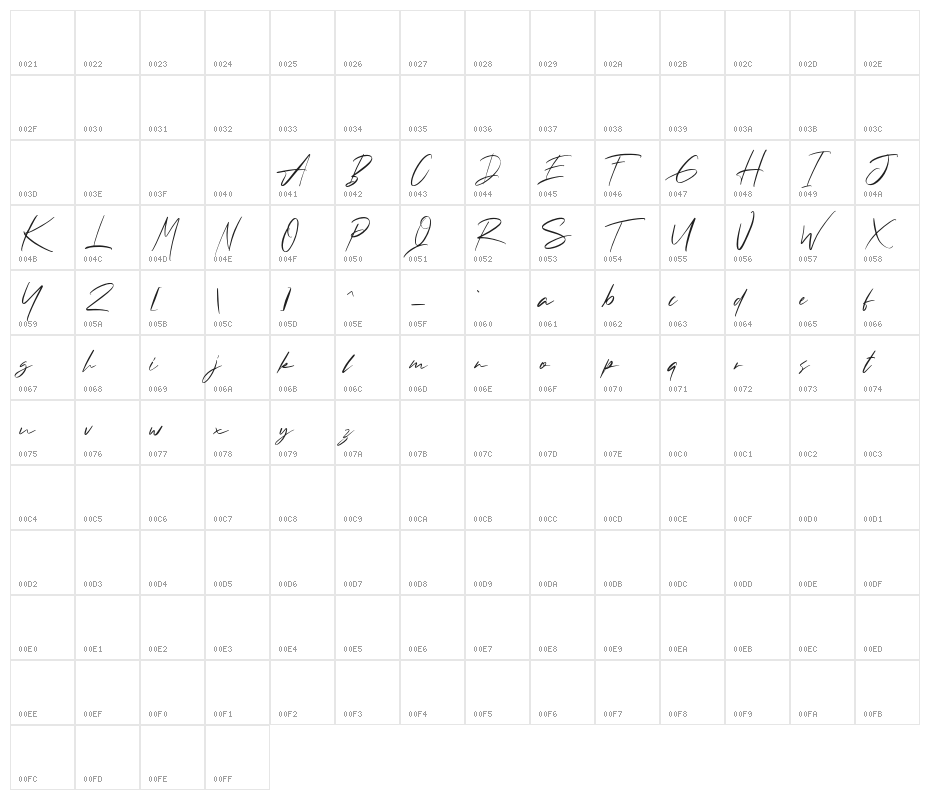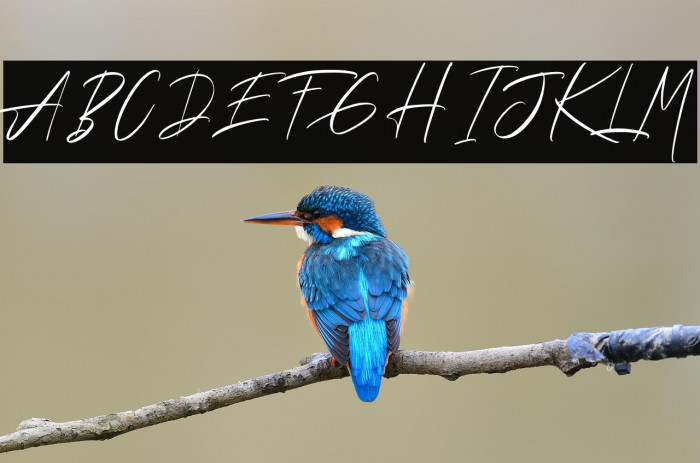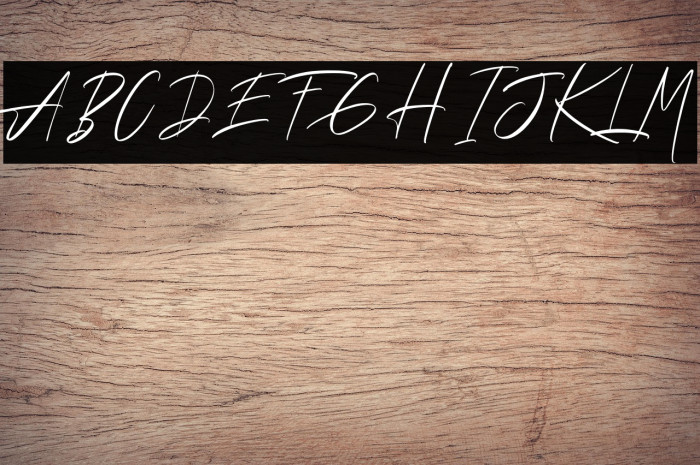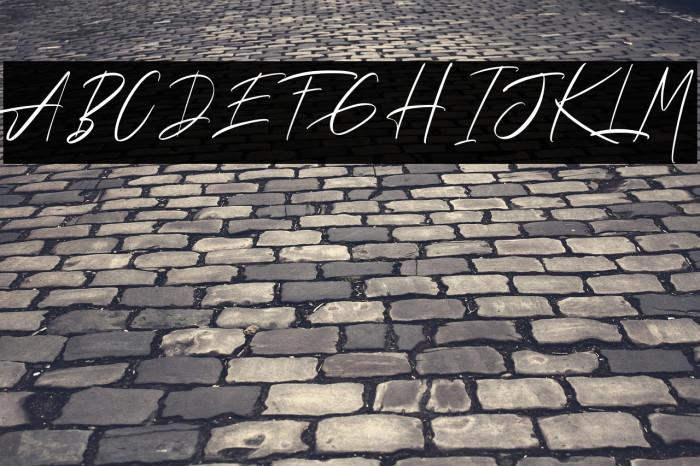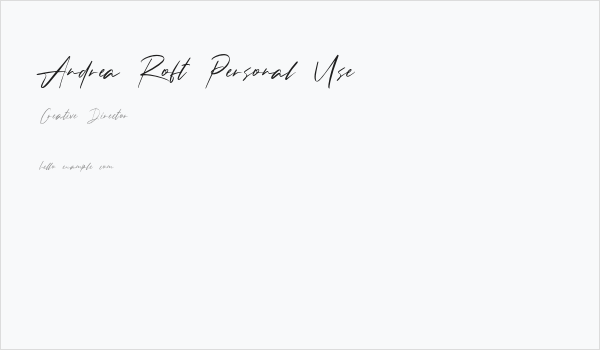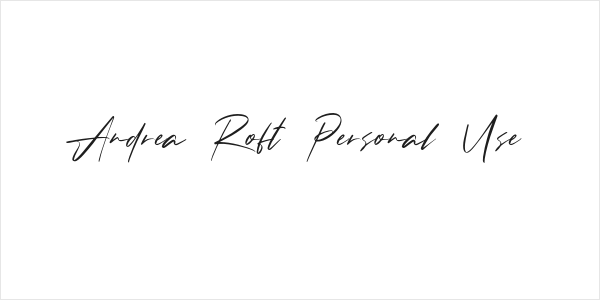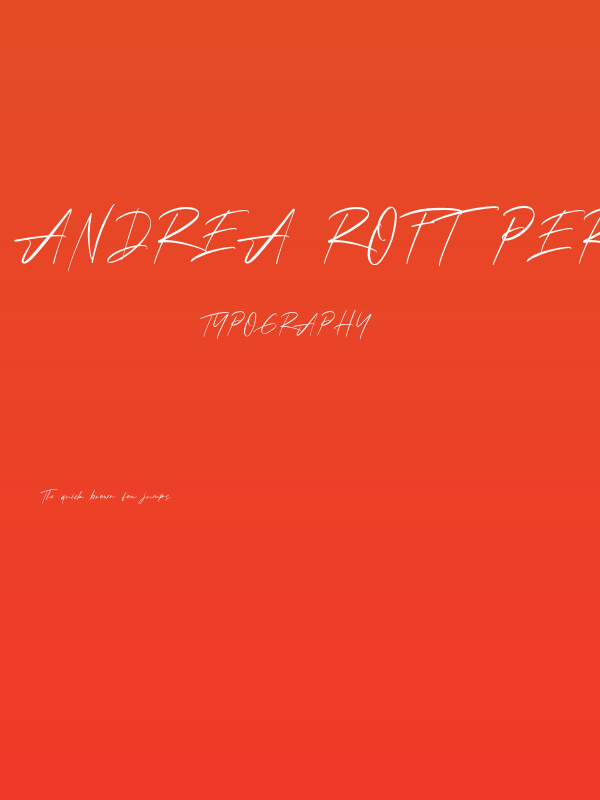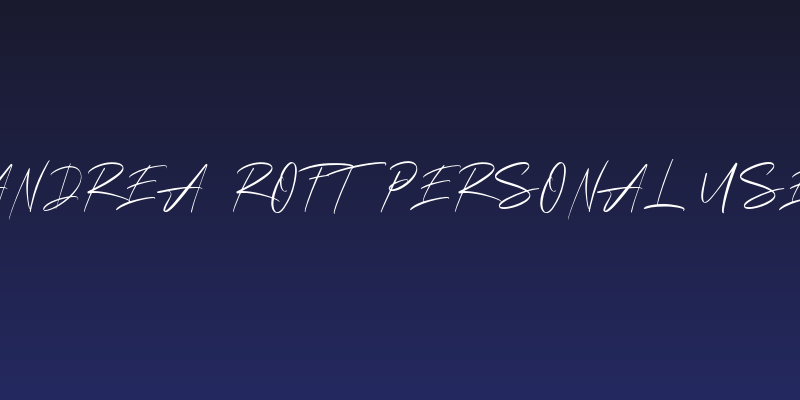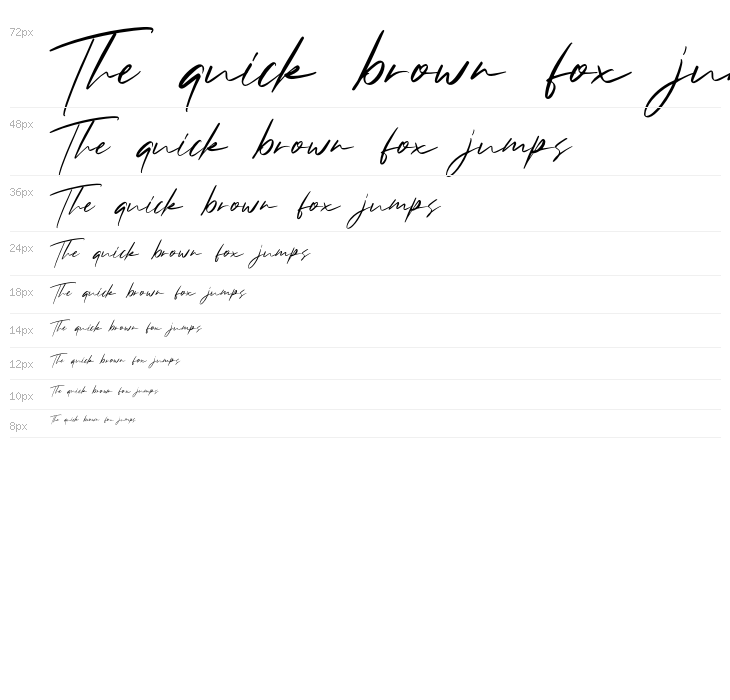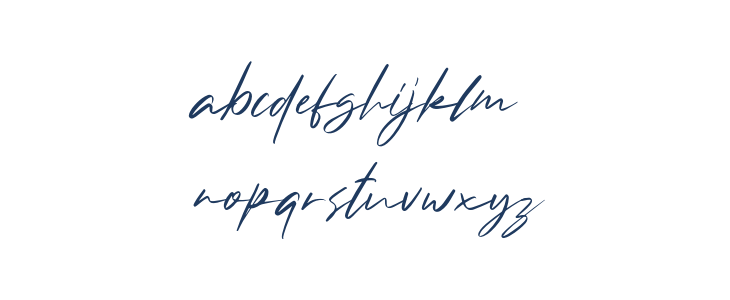
Andrea Roft Personal Use Font
Andrea Roft Personal Use Description
This font features a dynamic and fluid handwritten style, characterized by its elegant and flowing letterforms. The uppercase letters are tall and slightly slanted, giving a sense of movement and energy. The lowercase letters maintain a consistent style, with smooth curves and a natural, organic feel. The strokes vary in thickness, adding a touch of sophistication and a personal touch to the text. This font is perfect for projects that require a personal, artistic flair, such as invitations, greeting cards, and branding materials.
| Proposed Projects | Ideal for invitations, greeting cards, personal branding, and artistic projects. |